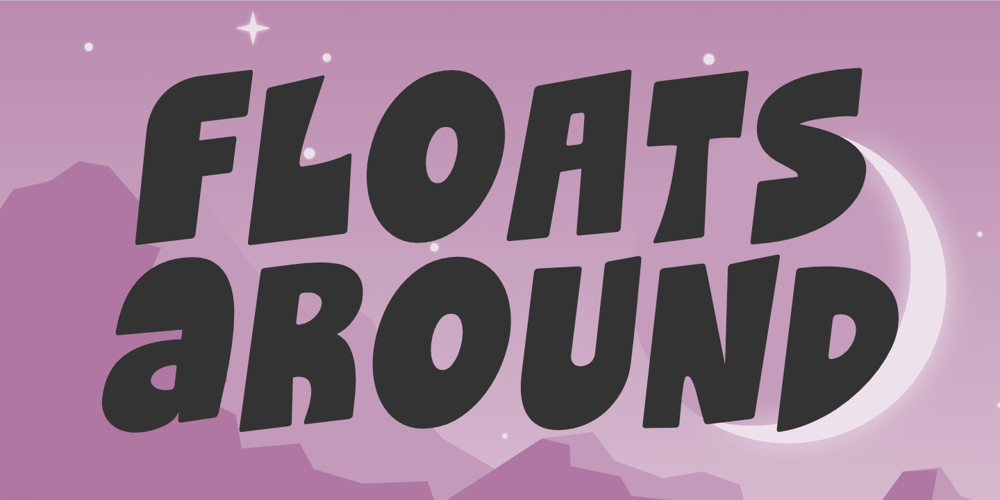
Floats Around Font Family was designed by Aldy Sidik and published by Epiclinez. Floats Around contains 1 styles and family package options. Are you looking to add some personality to your next project? Then Floats Around is the answer! This fun, playful font is just what your work needs to stand out. With its unique character, Floats Around can create bold headlines that grab attention. Plus, it’s also great for branding and logotypes, making it a versatile choice for any project.Floats Around Font includes : Standard Latin Uppercase & Lowercase Numbers, symbols, and punctuations Multilingual Support. Fully accessible without additional design software Simple Installations Works on PC & Mac Thank You.